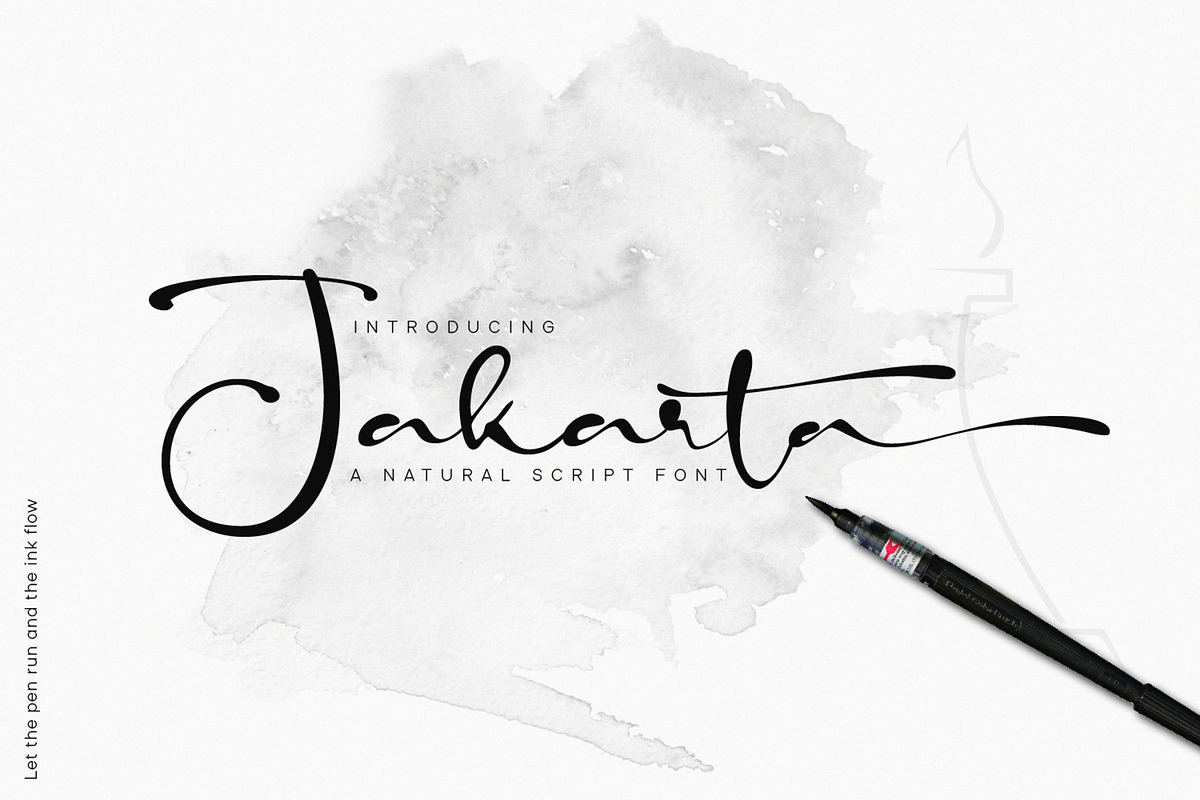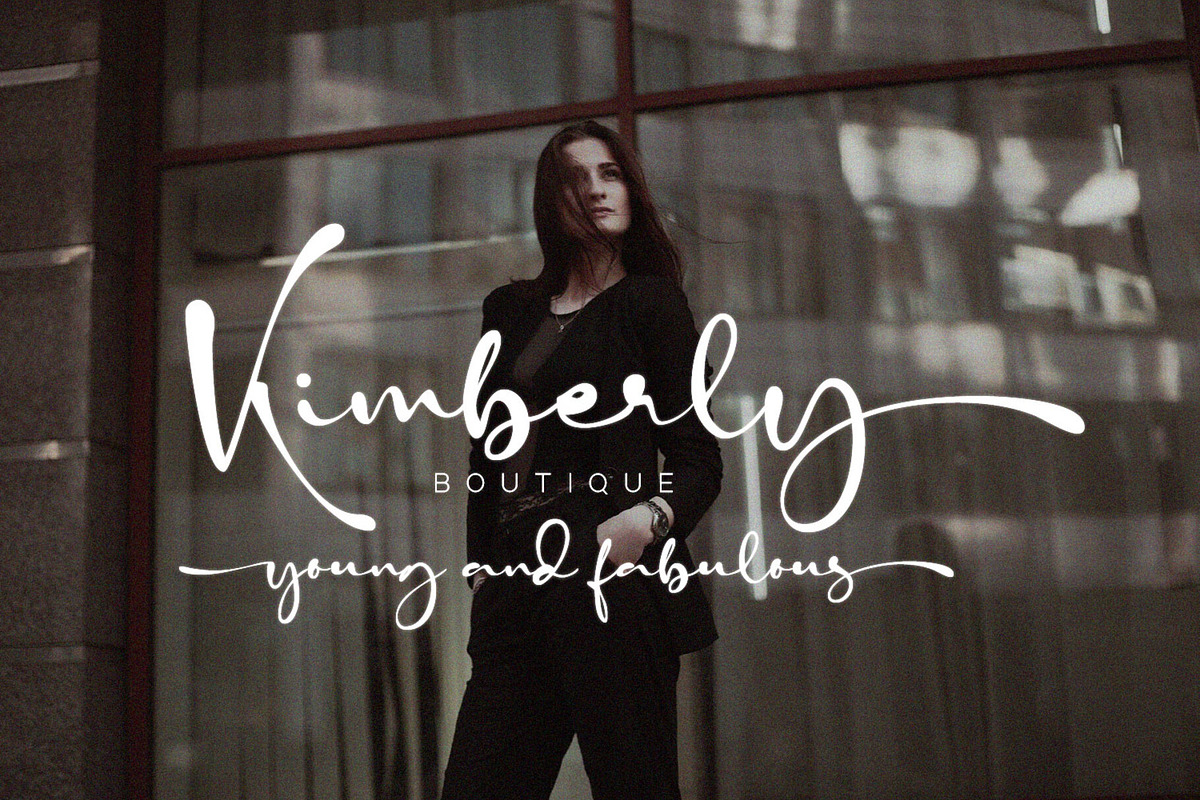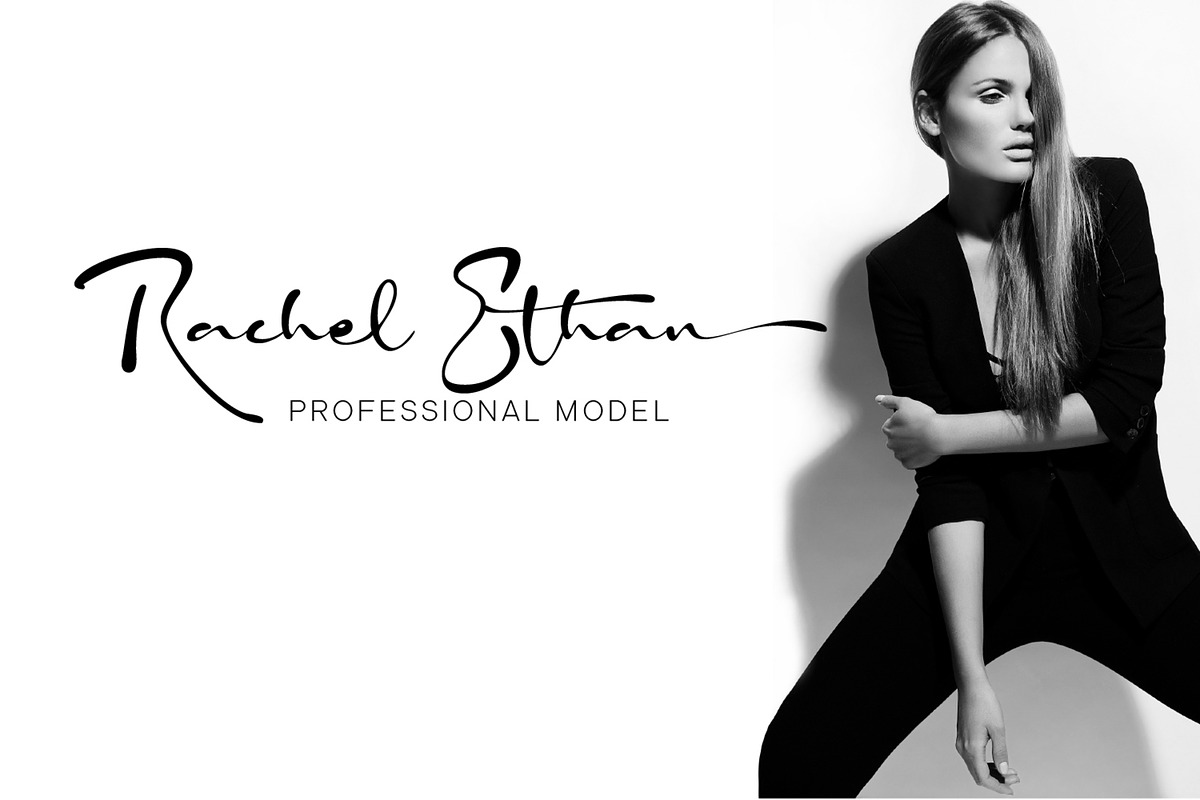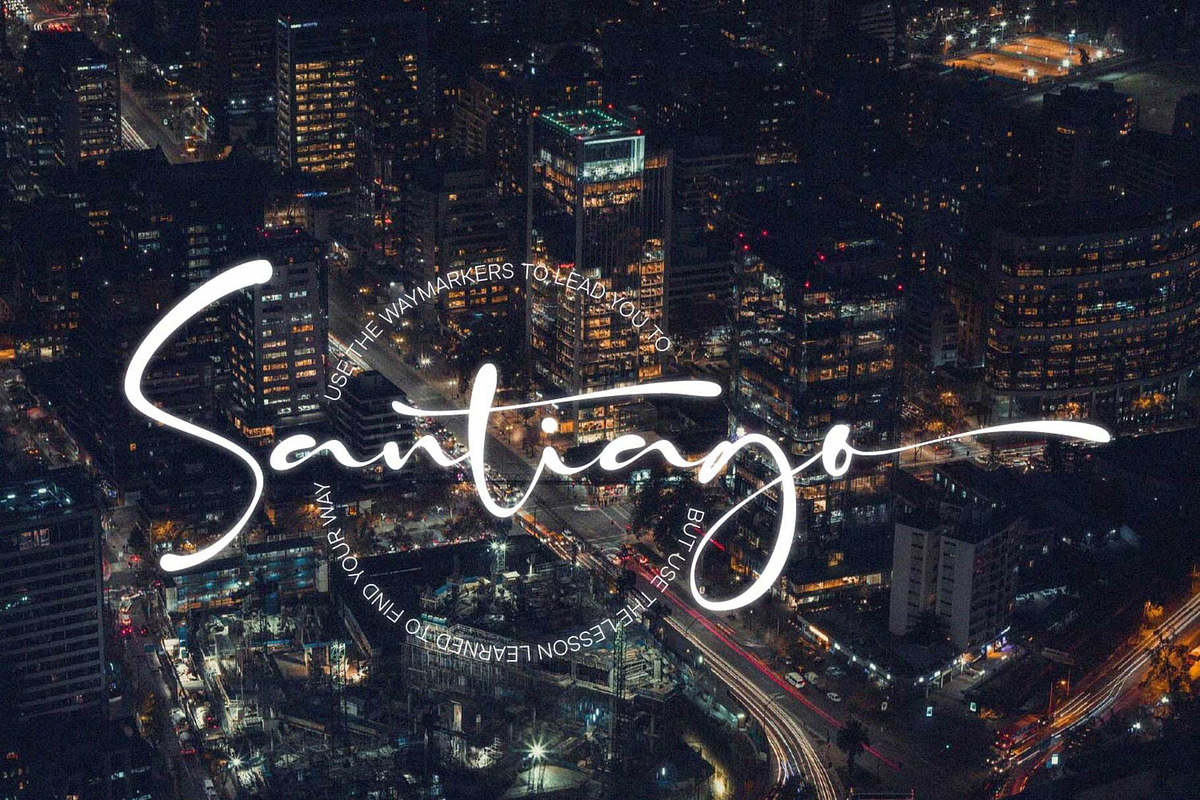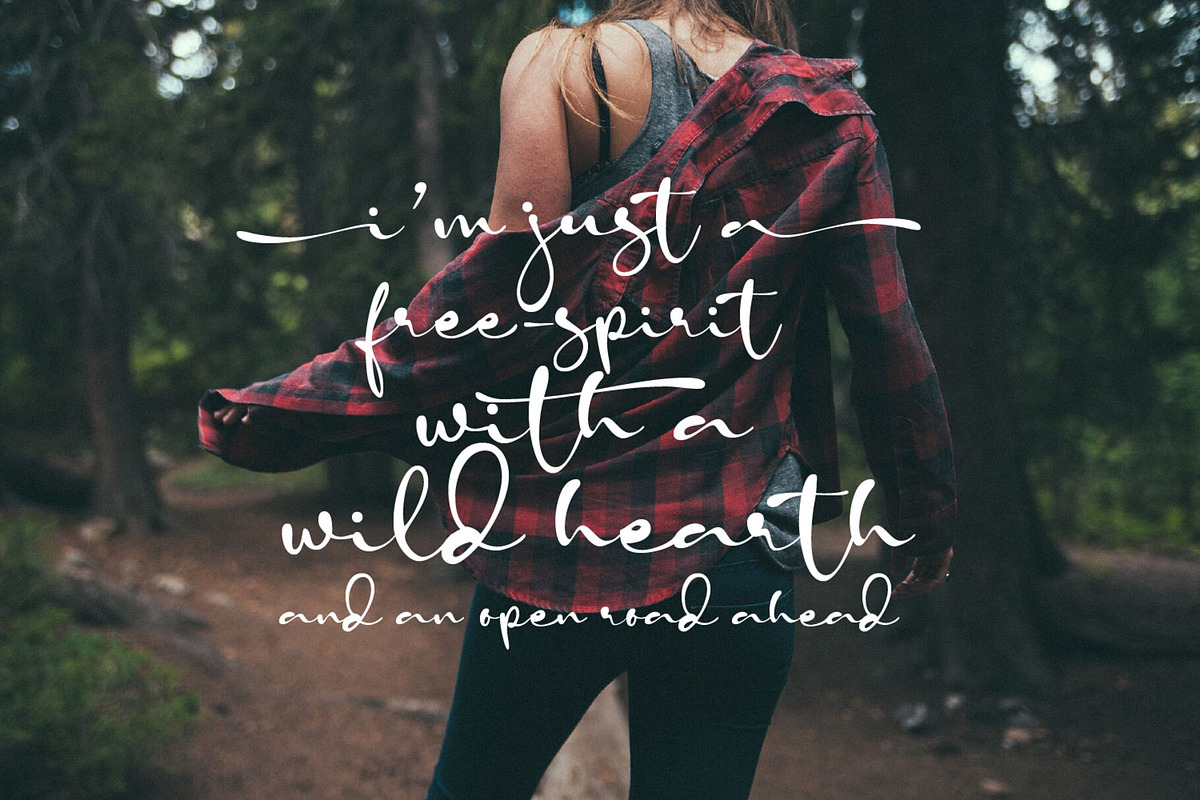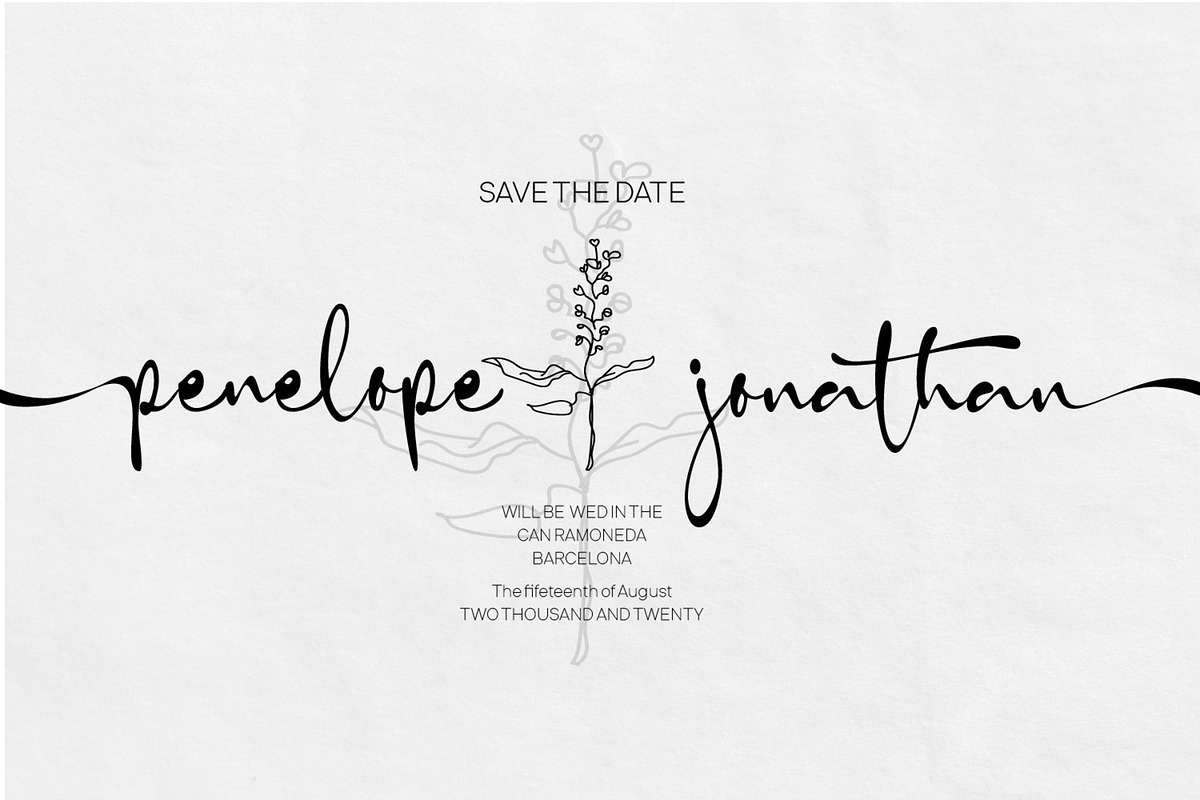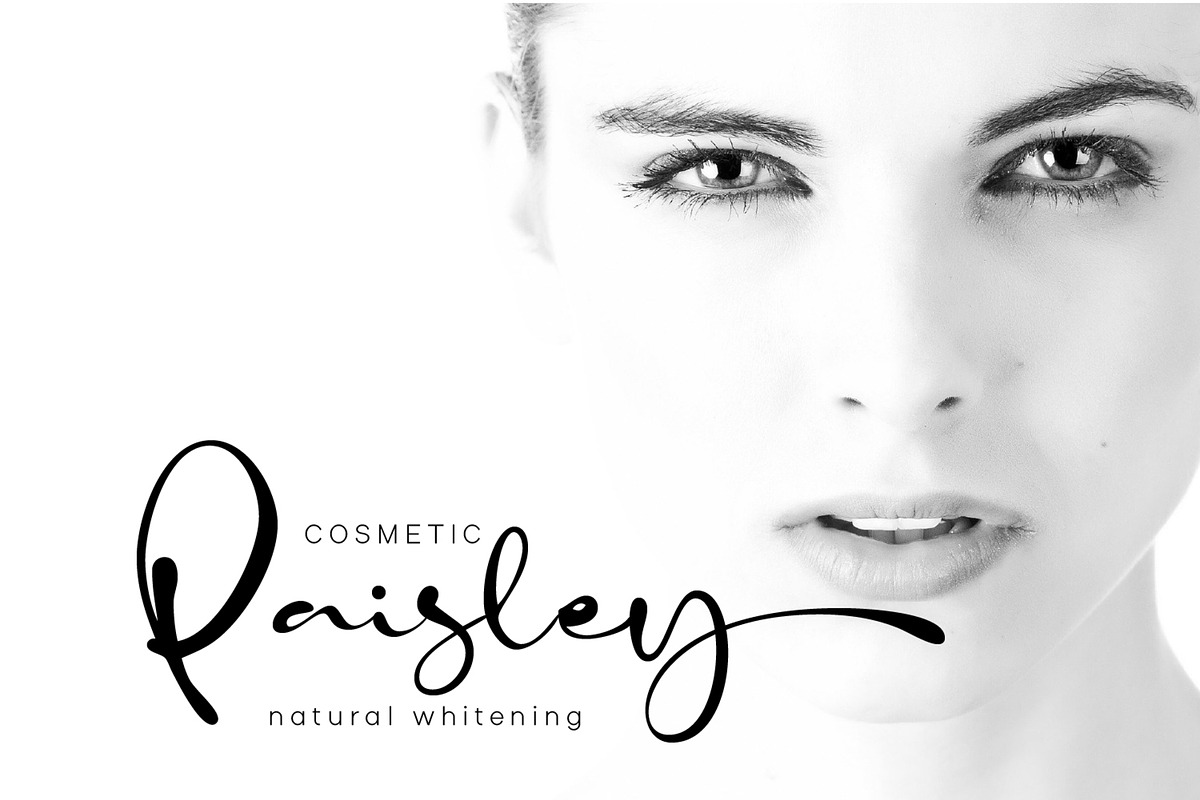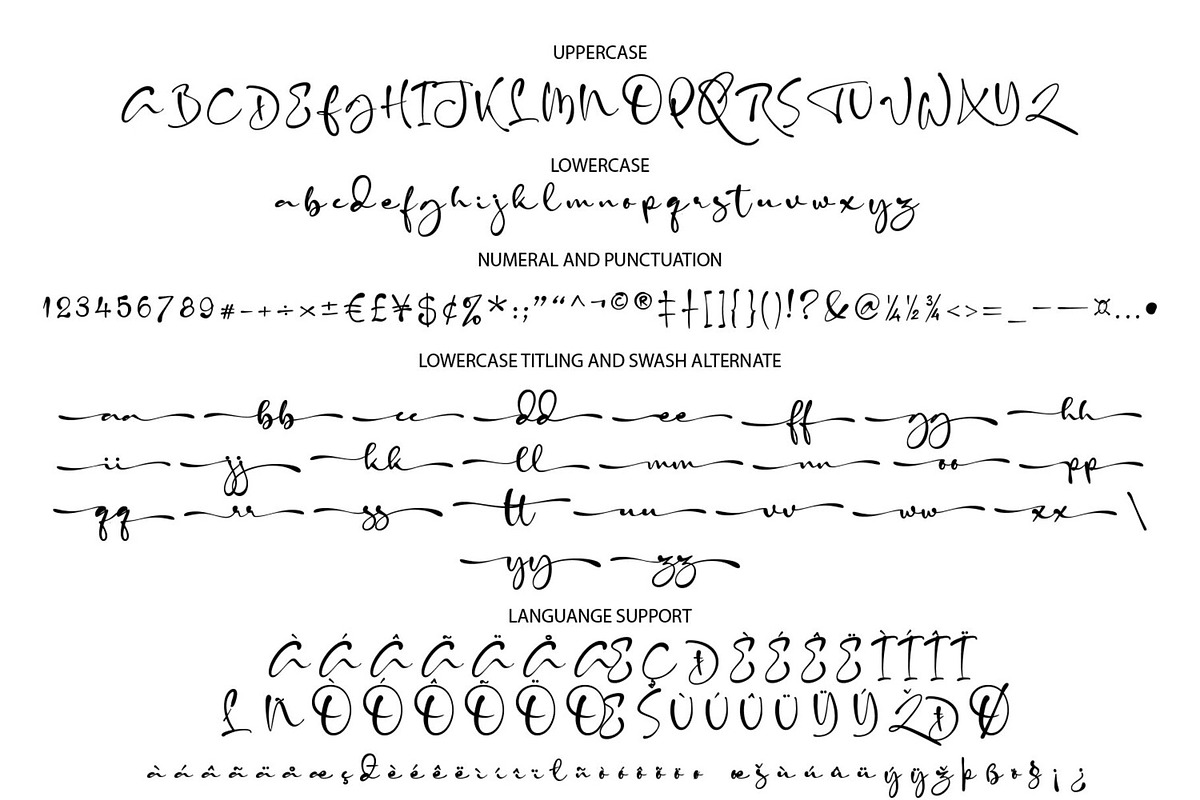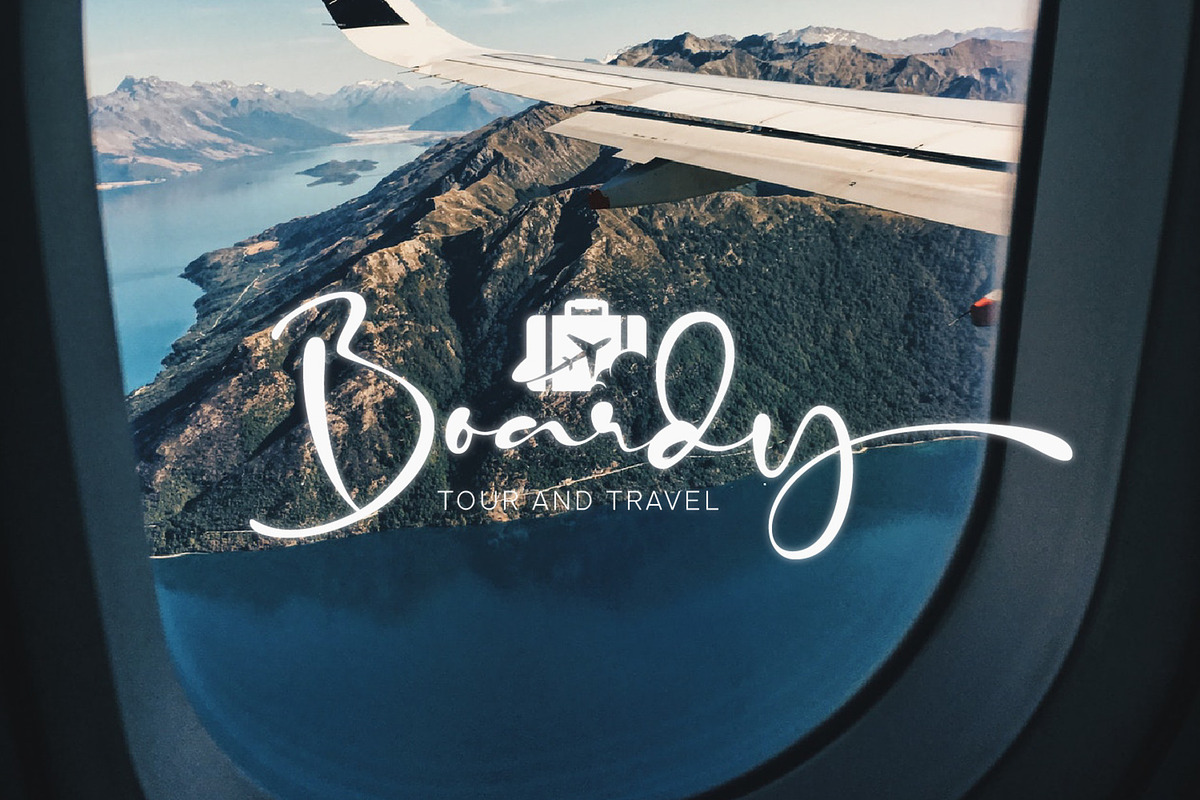
Jakarta - Natural Script Font
The overall look of this font shows the very deep psyche in the work, the ink hand and the pen have a soul moving in a rhythm. We named it 'Jakarta.' It is a stylish modern calligraphy font with casual chic flair. It is perfect for branding, wedding invites and cards. All lowercase letters include beginning and ending swashes, giving realistic hand-lettered style.